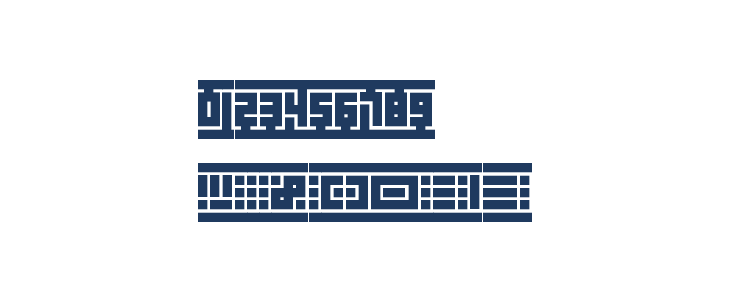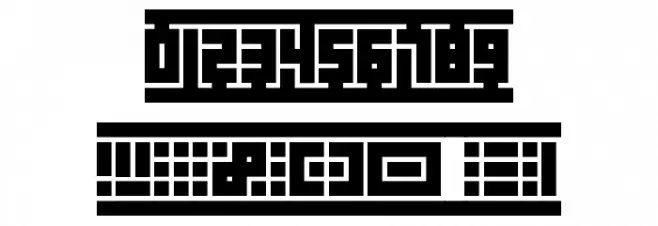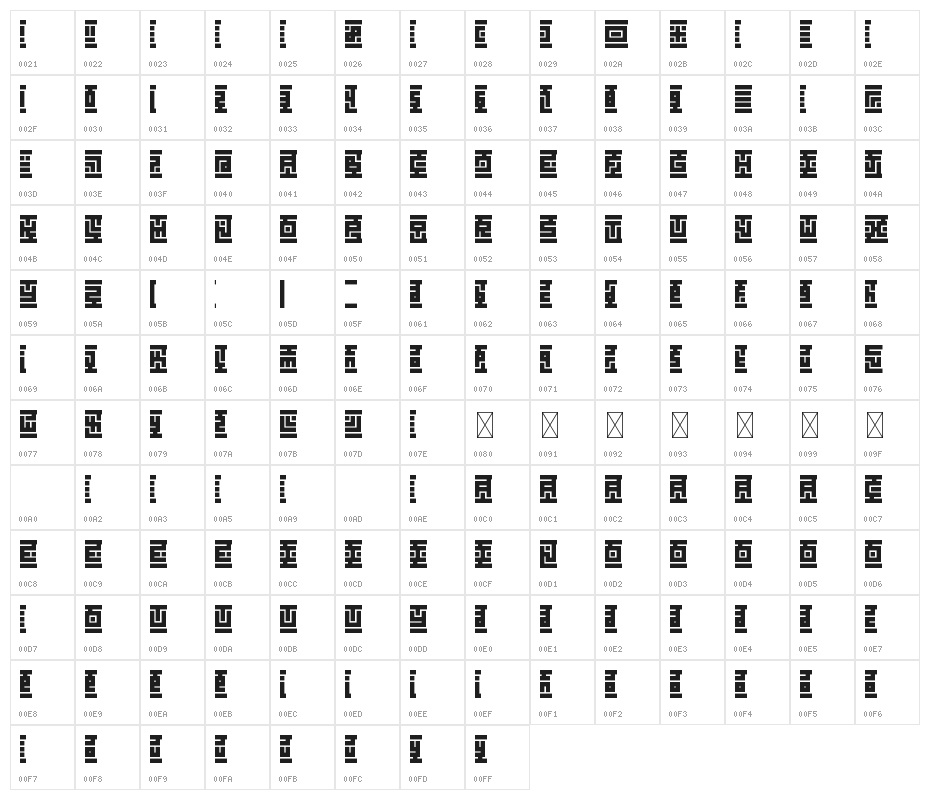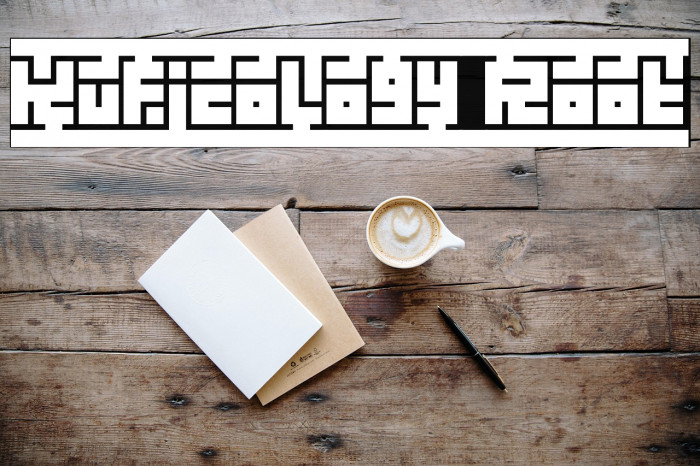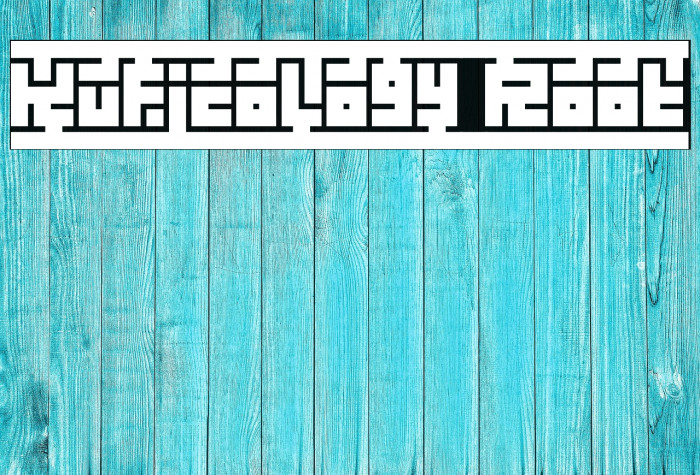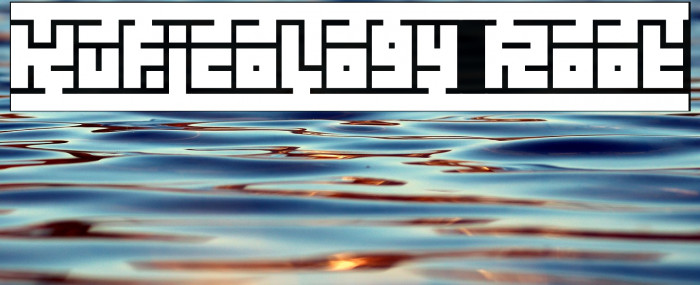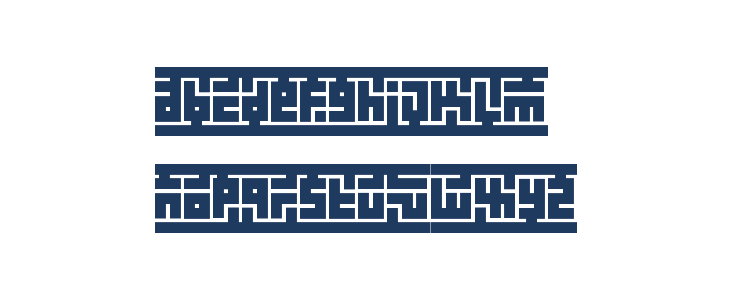
Kuficology Root Font
Kuficology Root Description
This font is a striking example of geometric design, characterized by its bold, block-like structure. Each character is crafted with precision, featuring sharp angles and a maze-like pattern that evokes a sense of modernity and innovation. The uppercase and lowercase letters maintain a consistent width, creating a uniform appearance across the typeface. The numbers and special characters follow the same design principles, ensuring a cohesive look. This font's unique style makes it stand out, offering a visually engaging experience.
| Use Case | Logos, Posters, Headlines |
| Proposed Projects | Ideal for branding, logos, posters, and any project requiring a modern, eye-catching typeface. |